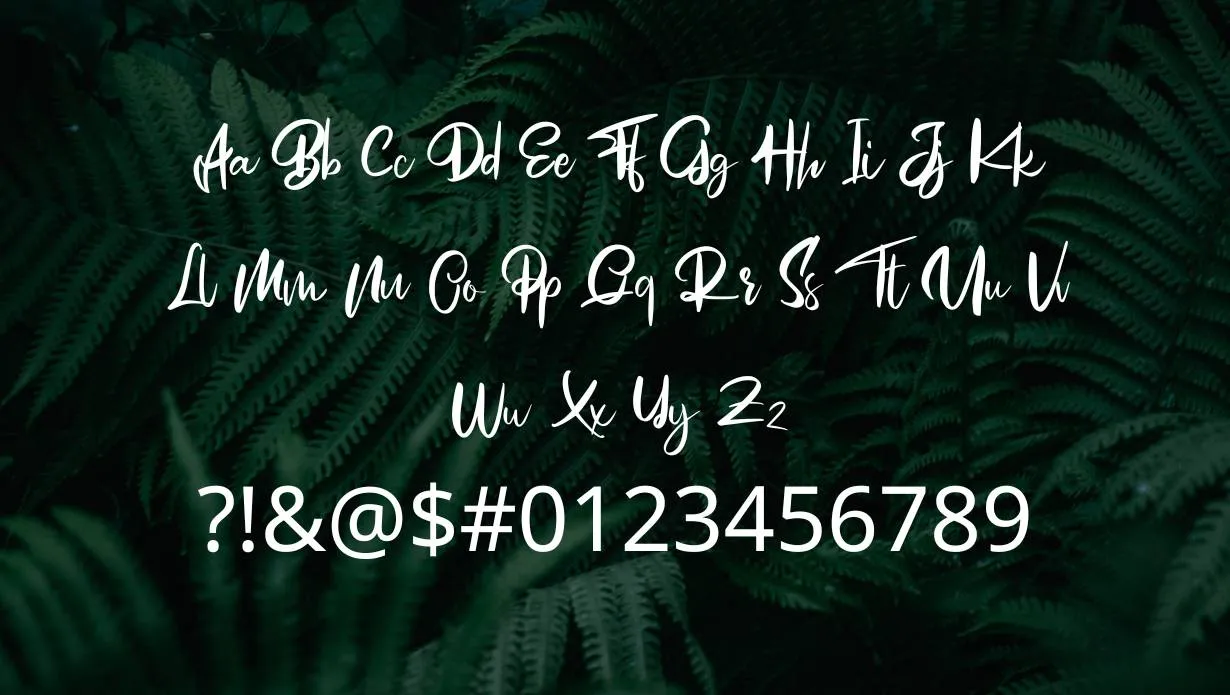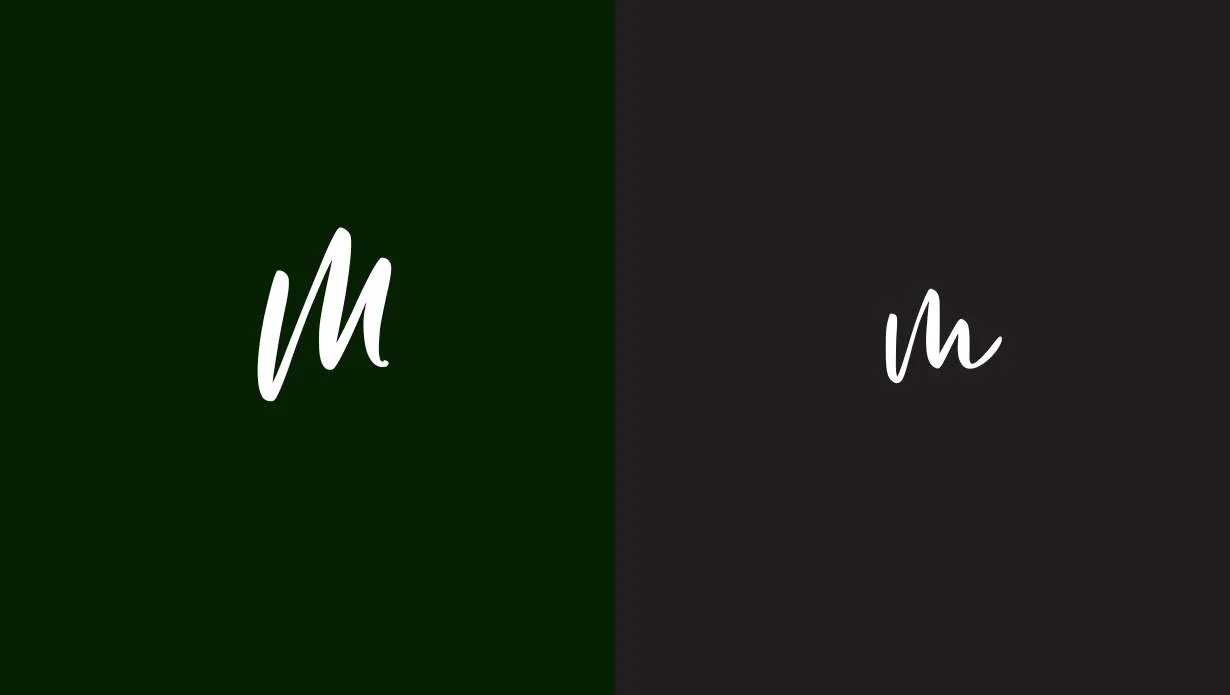
We’re going to present a stunning, unique, and stylish font style that comes with brushy, innovative, and attention-grabbing letterforms that can make your project fantastic and shiny from the rest. Mosem Font belongs to the script font family that was designed by Vunira Design.
| Name | Mosem Font |
| Designer | Vunira Design |